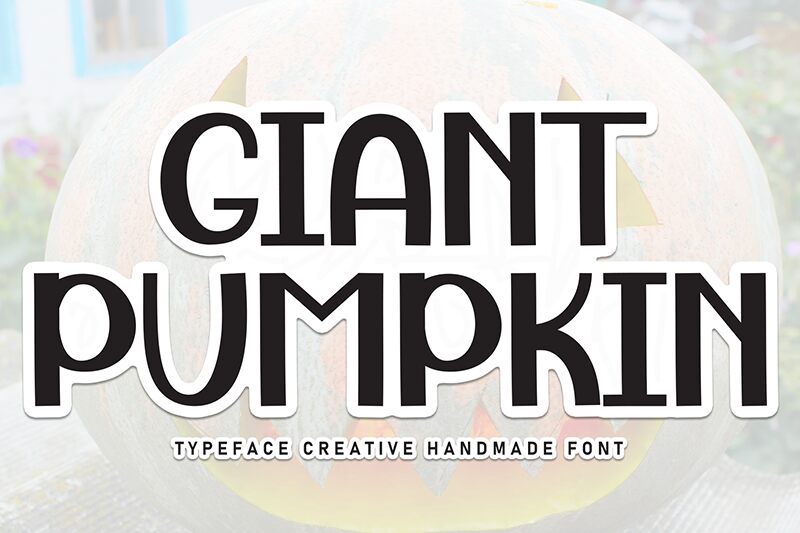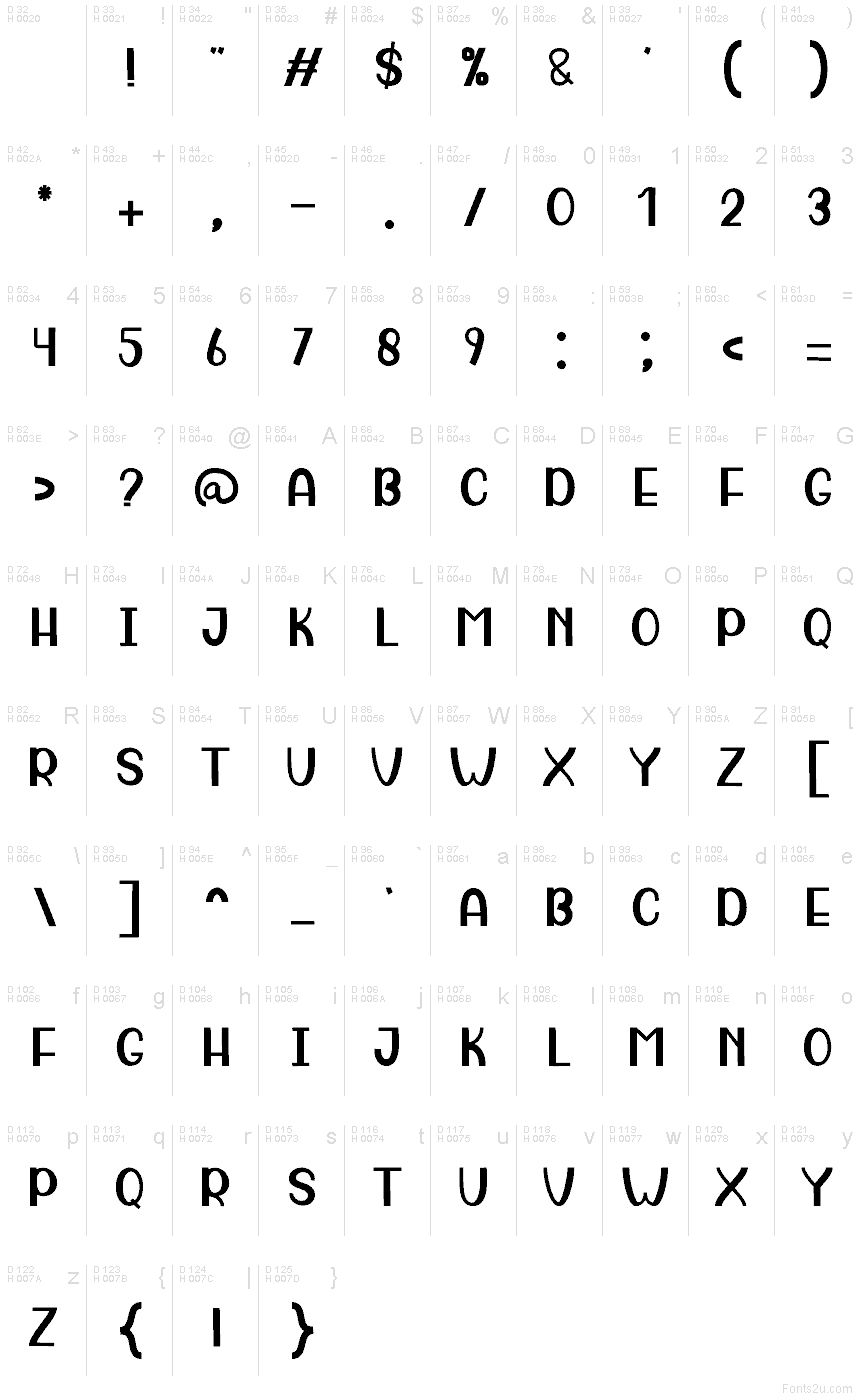
Giant Pumpkin
Giant Pumpkin font, designed by Andi Moz, is a striking retro-inspired display typeface with a geometric influence. Its high x-height and art deco aesthetic lend it a structured appearance, enriched with detailed decorative elements. This free display font has letters that have an unmistakeable unique visual presence and can stand out in any setting or platform.
The font is stunning in magazine covers, advertisements, social media posts, and blogs headlines. It would look staggering in webpage hero sections and posters designing as well as flyers/leaflets. Many fonts are used for branding purposes since they help form an identity visible to the public that attracts their attention or sends subtle messages related to their values. Giant Pumpkin is not different which is why you should use it when working on your packages or labels to make them instantly noticeable to whoever sees them.